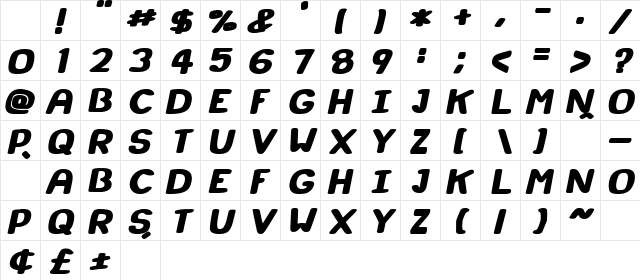
Complete Super Marker Italic glyph index. Displaying only characters natively supported by Super Marker Italic font.
Super Marker is a composed and adaptable typeface that performs quietly and consistently across a wide range of design contexts. The slanted form adds forward momentum and visual energy.
Pro Tip: Use Super Marker for emphasis, pull quotes, and subheadings where its slanted energy can add rhythm to the layout.